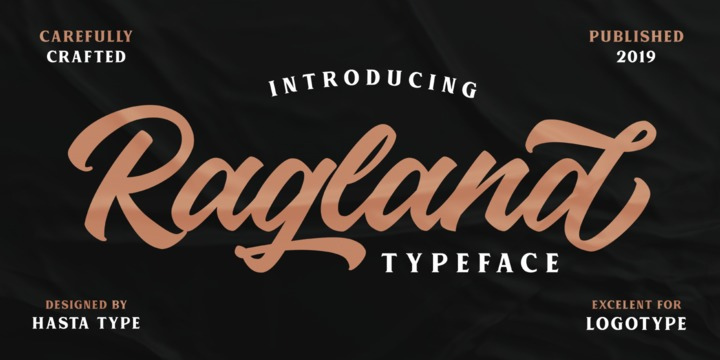
Ragland Font
Ragland Font is perfect for western-themed branding, vintage poster designs, rustic restaurant signage, country music graphics, rodeo event materials, outdoor adventure companies, heritage brand communications, and authentic frontier-style marketing.
Ragland Font is exciting because it captures the rugged spirit of frontier heritage with weathered letterforms and authentic western character that evokes the untamed wilderness and pioneer determination. Its robust presence creates immediate atmospheric impact and genuine frontier authenticity that resonates with audiences seeking adventure and heritage experiences.
Ragland Font family includes regular weight with western alternates and rustic variations, providing designers with comprehensive options for creating authentic frontier typography solutions that project pioneer strength and heritage character.
Ragland Font Free Download delivers premium western typography that embodies the essence of frontier culture and authentic pioneer heritage. This distinctive typeface demonstrates exceptional attention to western detail through its rugged letterforms and frontier-inspired construction that recreates genuine pioneer appeal without sacrificing modern functionality. The font's adventurous personality makes it particularly suitable for western entertainment venues, outdoor adventure companies, heritage tourism businesses, and frontier-themed brands seeking to establish authentic western atmosphere that connects with audiences craving pioneer experiences and frontier heritage.
Creative professionals consistently choose Ragland Font for projects requiring frontier authenticity and western visual impact. Its rugged character works magnificently in themed restaurants, outdoor recreation venues, heritage sites, and adventure tourism where atmospheric immersion and authentic western personality drive customer engagement. The font's frontier nature creates memorable brand experiences that transport audiences to the legendary American frontier and pioneer adventures.
The Ragland Font download package includes western alternates, rustic variations, and frontier symbols that enhance its pioneer authenticity and design versatility. This comprehensive collection ensures professional results in western-themed design projects requiring authentic frontier typography. The font performs exceptionally in both large atmospheric applications and detailed heritage work where its rugged character adds significant frontier value and western distinction.
Design teams appreciate Ragland Font's ability to create instant brand recognition through its distinctive western character and powerful frontier appeal. Its authentic pioneer styling transcends contemporary design trends while maintaining the atmospheric impact required for western market positioning, making it an essential tool for brands seeking to establish emotional connections through superior frontier typography and exceptional western communication.